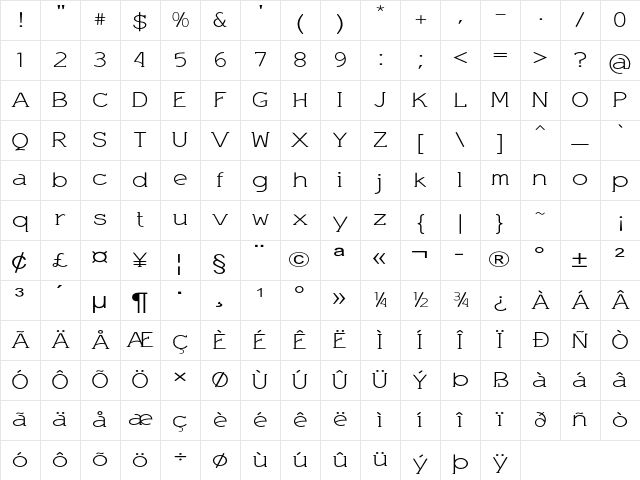
Complete Worship Expanded Regular glyph index. Displaying only characters natively supported by Worship Expanded Regular font.
Worship is a composed and adaptable typeface that performs quietly and consistently across a wide range of design contexts.